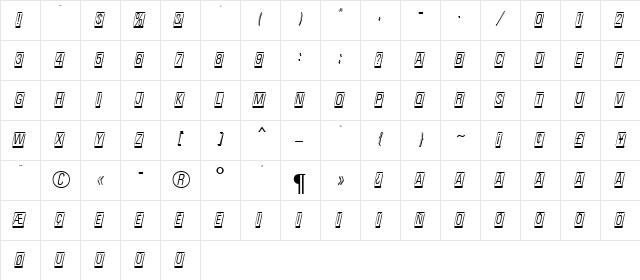
CardCamio MN Regular
| Foundry | Mecanorma International . \ |
Design Context for CardCamio MN Typeface
CardCamio MN is a composed and adaptable typeface that performs quietly and consistently across a wide range of design contexts.